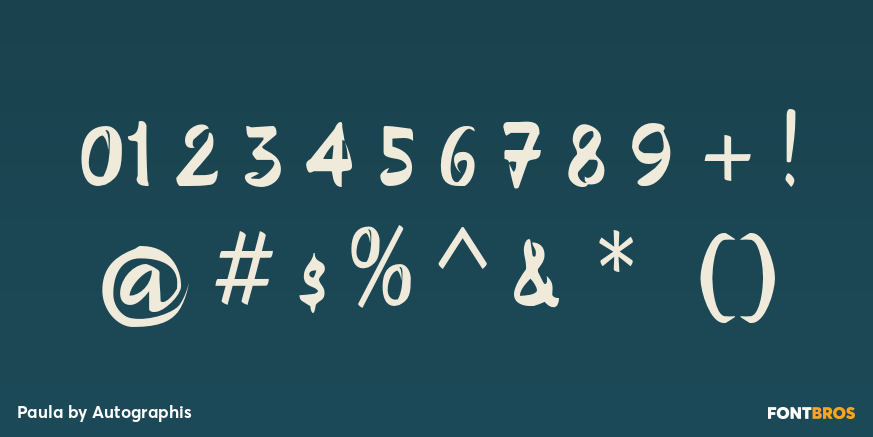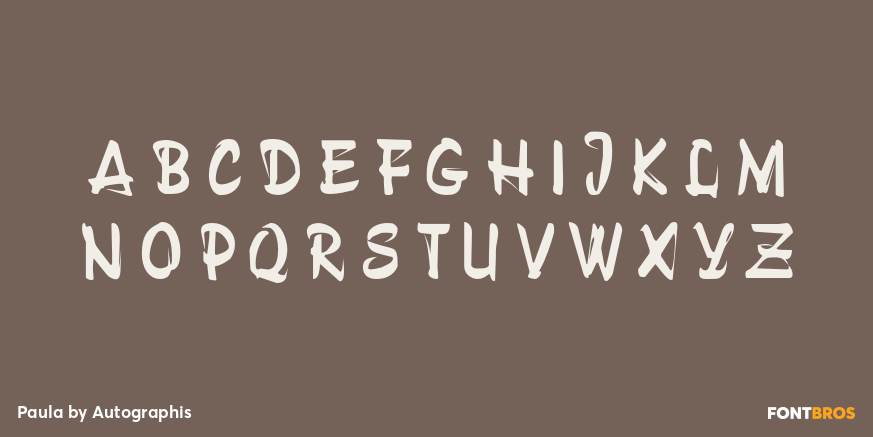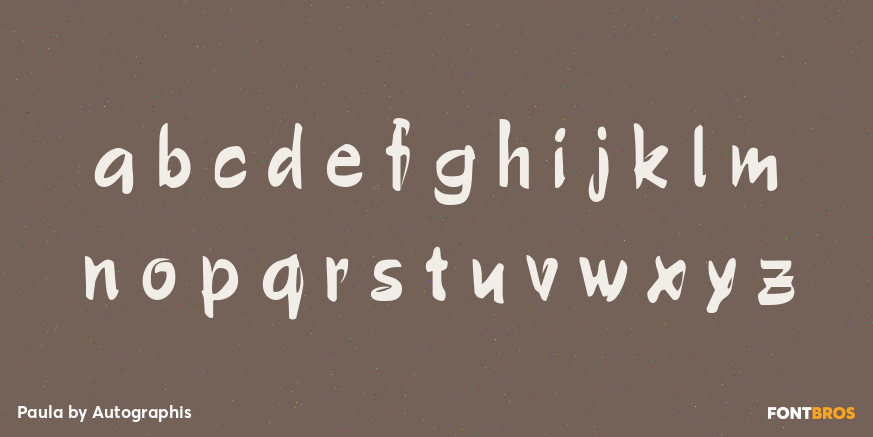
Paula
Font Family by Autographis
Paula is a non-joining rough brush script with traces of the brush's backstroke that give it that typical look.
Paula is an open script with very good readability.